30+ Best Outline Fonts
An outline font is a great choice for adding titles and headlines that attract attention. As the name suggests, an outline font features a character design that only consists of outlines without a fill. Whether you're designing a logo, branding, stationery, or a digital design, an outline font can add unique character and a distinct look-and-feel.
Minya Font
Minya is a beautiful and distinctive font from Fontesk. It has a unique and playful feel to it that makes it perfect for use in branding, logos, websi...
St. Elbrus Outline Font
St. Elbrus is a popular serif typeface that was created by Alexander Shimanov. It is a contemporary, high-contrast typeface with an emphasis on legibi...
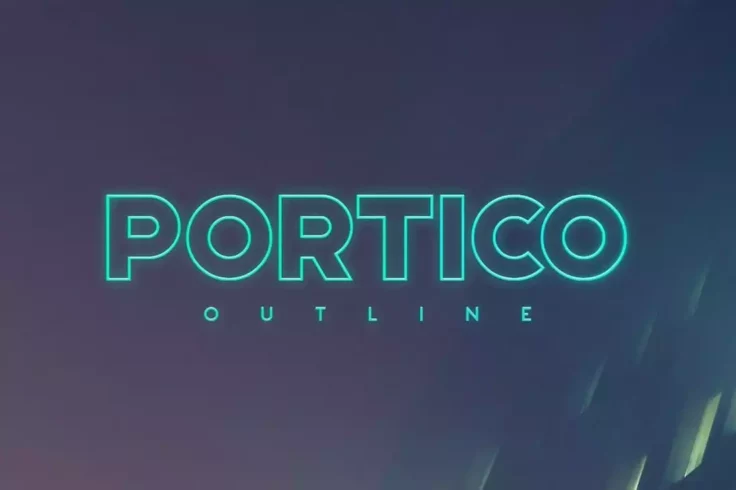
Portico Outline Font
Portico is a popular font choice for outlining in sci-fi, modern, avant-garde, or futuristic design projects. Its bold design makes it ideal for use a...
Nostromo Classic Font
Nostromo is a font that captures the futuristic essence of science fiction. Ideal for use by companies in the gaming or technology industries, it supp...
Prospec Font
Prospec is a modern and versatile font that is suitable for a wide range of design projects. The font is an outline style, which means it features a t...
Polygon Technology Font
Polygon is an abstract font that seamlessly blends futuristic elegance with innovation. Its disciplined mesh design, featuring thin lines, creates a d...
VISIA Duo Geometric Font
Visia Duo is a combination of neo-grotesque fonts that will enhance any project. It boasts clean, minimal lettering, making it ideal for a variety of ...
Robinson Outline Font
Introducing “Robinson,” a trendy outline font that does a swell job of bringing a retro feel to a modern set of sans-serif characters. Mod...
Exodar Space Font
Exodar is a dynamic, futuristic font that uses a thick outline design to create a bold and distinctive shape. Despite its dramatic style, it is also s...
Freeline Monogram Font
The Freeline font is a sleek and modern typeface designed to add a touch of elegance to any project. With its clean and minimalistic design, it is per...
Hikou Font
Hikou is a really cool font that’s perfect for fashion and apparel brands. It’s an outline font, which means it’s great for creating...
Pittsbrook Outline Font
Pittsbrook is a classic outline font featuring a sharp, and blocky design that is great for creating E-sport logos, liquor/food labels, headlines, mer...
Becak Font
Becak is a hand-drawn font that exudes a playful and bold style. Available in two styles (solid and outline), Becak is an ideal choice for creating a ...
Burford Outline Font
Burford is a font family that was created by a designer who was inspired by the unique typography found throughout Europe. The designer spent hours in...
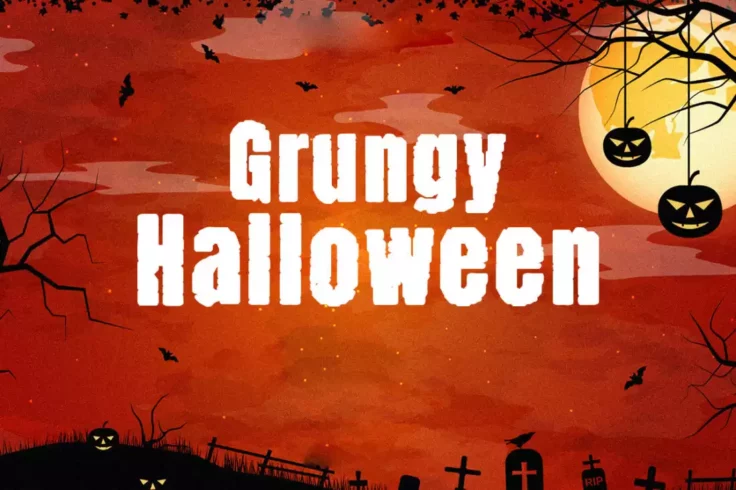
Grungy Halloween Outline Font
Grungy Halloween is a unique, spooky font perfect for adding a touch of horror to your projects. The font has a rough, hand-drawn look with a heavy te...
Okami Outline Font
Okami is a modern font that pays homage to Japanese design and culture. It incorporates elements from logo graphic Japanese characters and has a disti...
Superline Font
SuperLine is a modern display font, created to add a contemporary touch to your design projects. It comes in three distinct styles – regular, li...
Azidhor Font
The Azidhor font is a unique, all-caps typeface that boasts a distinctive design. Each letter has a creative flair that is sure to grab attention. The...
Zeuty Font
The Zeuty collection offers a variety of 4 distinct font styles to enhance your design projects. It includes an outlined font, a script font, a regula...
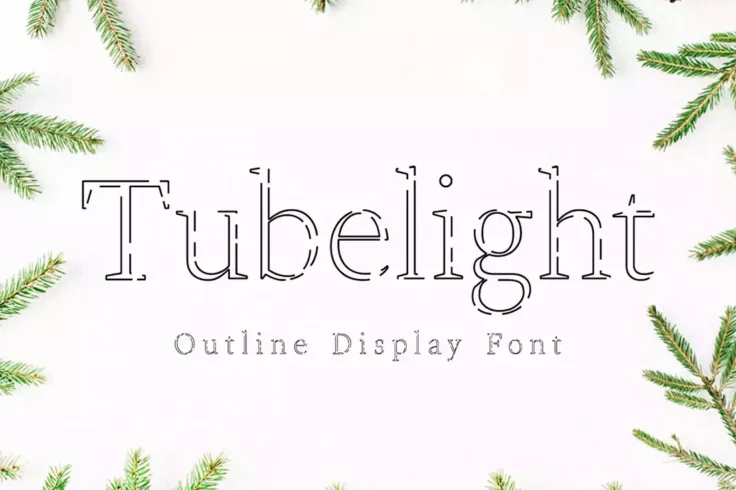
Tubelight Font
Tubelight is a charming, delightful, and remarkable typeface that can be used in your creative projects to add a delicate feel. The font is inspired b...
Belligro Outline Family
Belligro is a unique and versatile script font that is perfect for a wide range of projects, from invitations and posters to branding and packaging. T...
Organa Caps Font Family
Organa is a display font that features a unique, hand-drawn style with a slightly rough edge. The font is characterized by its thick, bold lines and c...
Liorentin Font
Liorentin is a graceful font with delicate lines that gives it a timeless appeal. It can be used for a wide range of designs, from personal projects s...
Legacy Vintage Font
Yes, outline fonts can be paired effectively with solid fonts to create visual hierarchy and contrast. For example, an outline font could be used for a title or headline, with a solid font used for body text. This approach allows the outline font to provide visual interest and emphasis, while the solid font ensures legibility for longer pieces of text.
As with any font pairing, balance is key. The outline and solid fonts should complement each other and work together to support the overall design. Factors such as size, weight, and style should all be considered when pairing fonts.